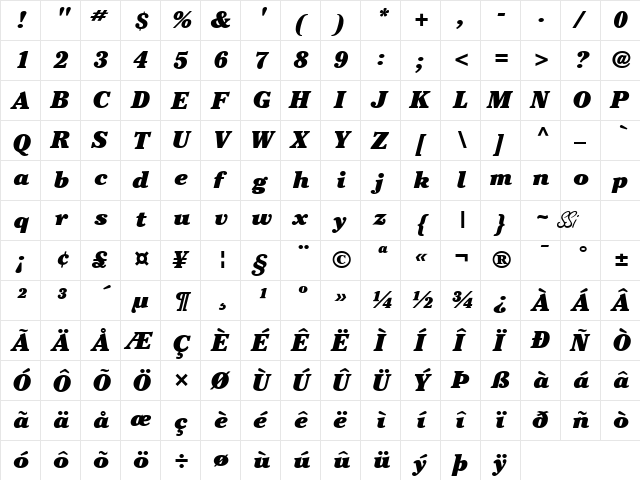
Cheltenham Black SSi Black Italic
Design Context for Cheltenham Black SSi Typeface
Cheltenham Black SSi takes a measured approach to typography — its balanced proportions and neutral character make it a reliable workhorse for both digital and print work. Its italic angle brings a sense of urgency and motion to the letterforms.
Pro Tip: Use Cheltenham Black SSi for emphasis, pull quotes, and subheadings where its slanted energy can add rhythm to the layout.